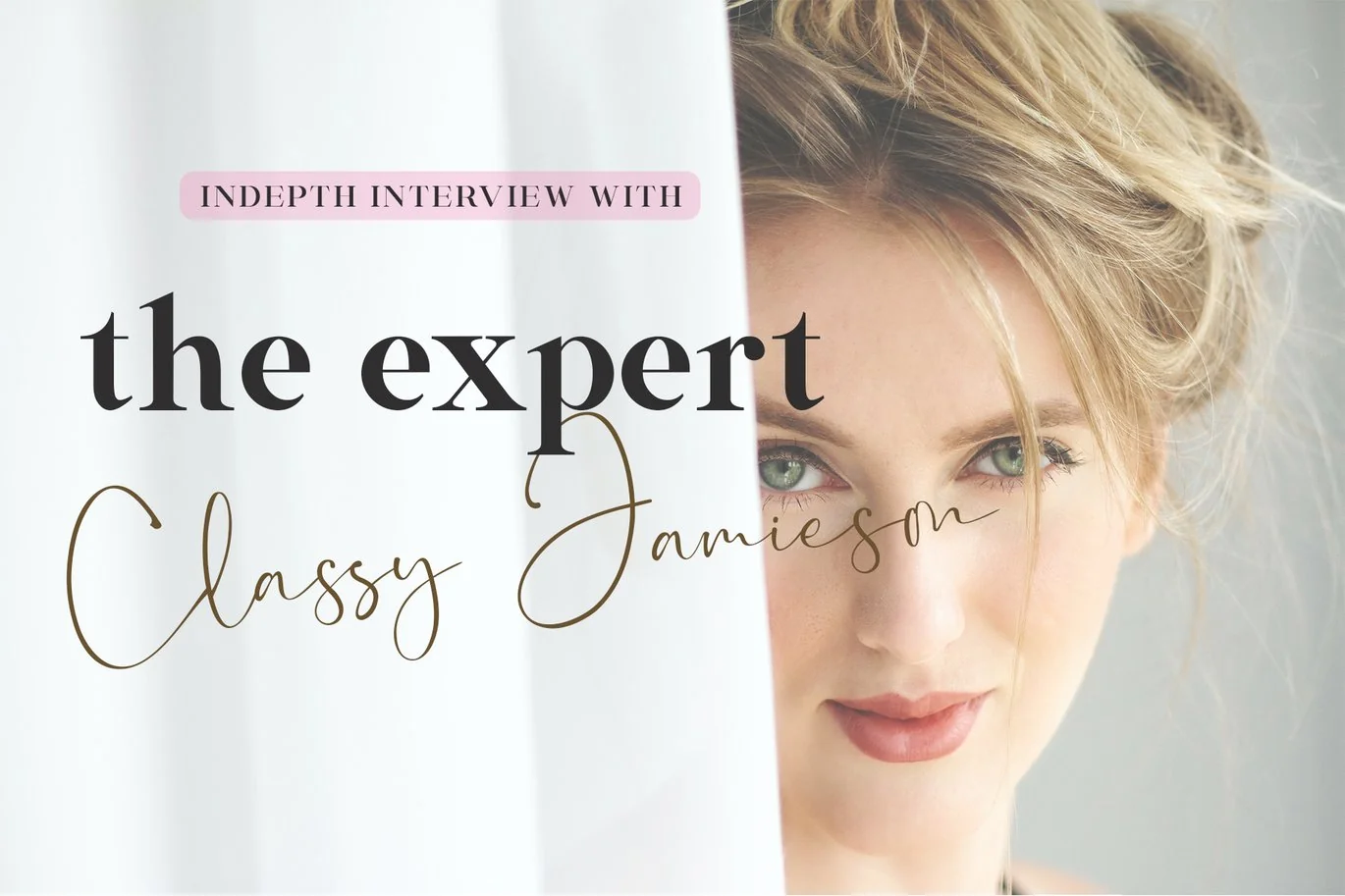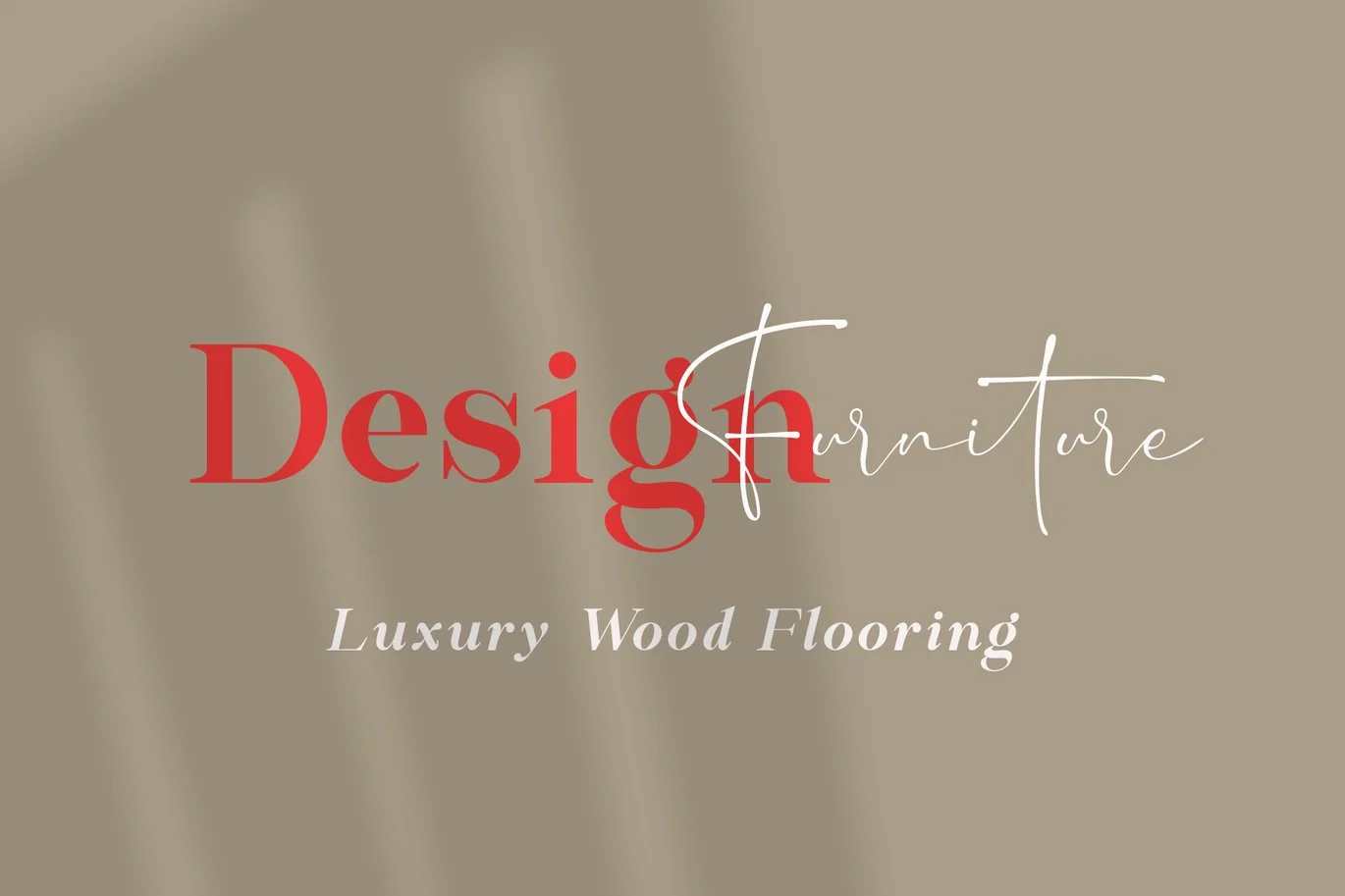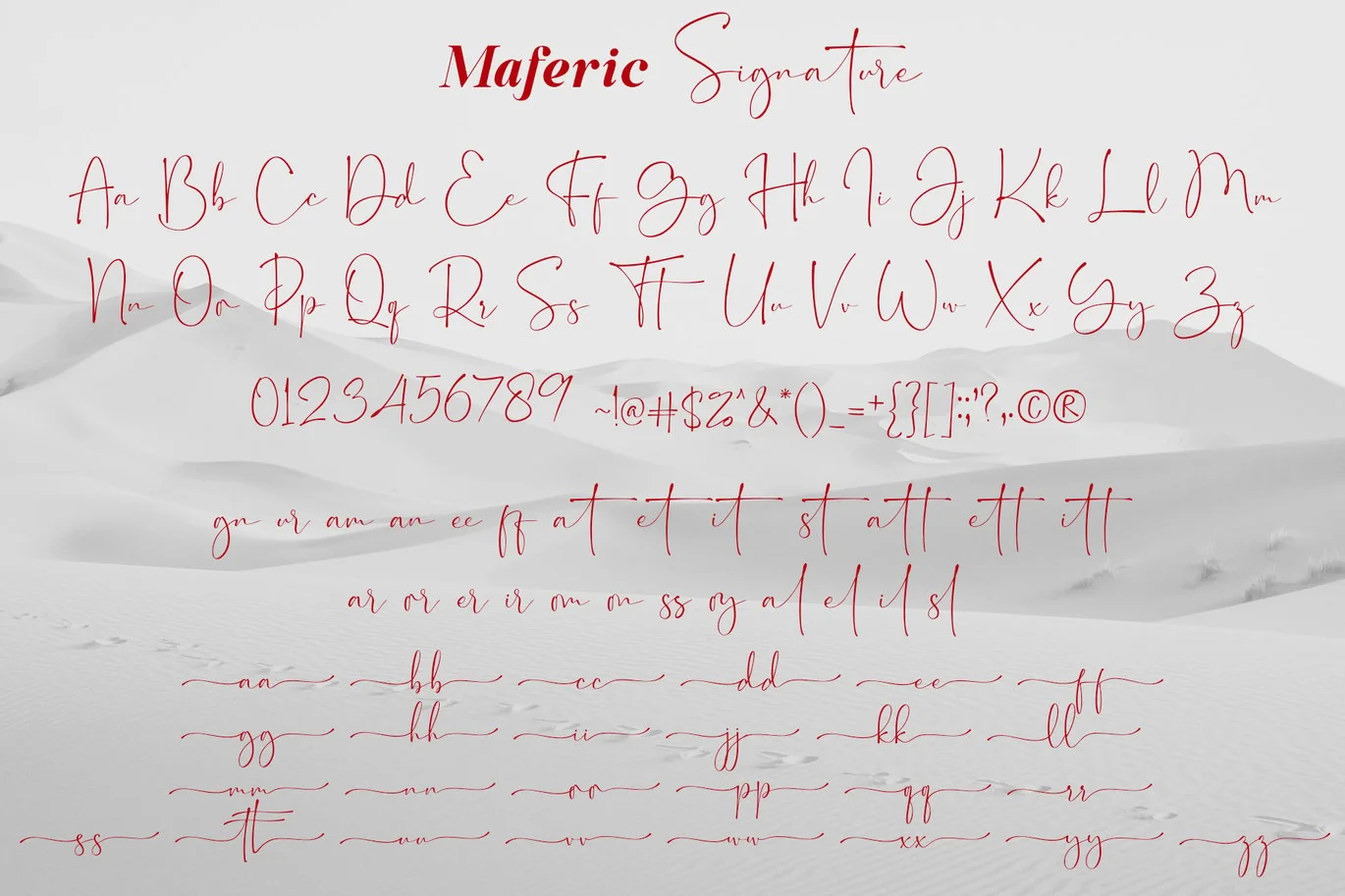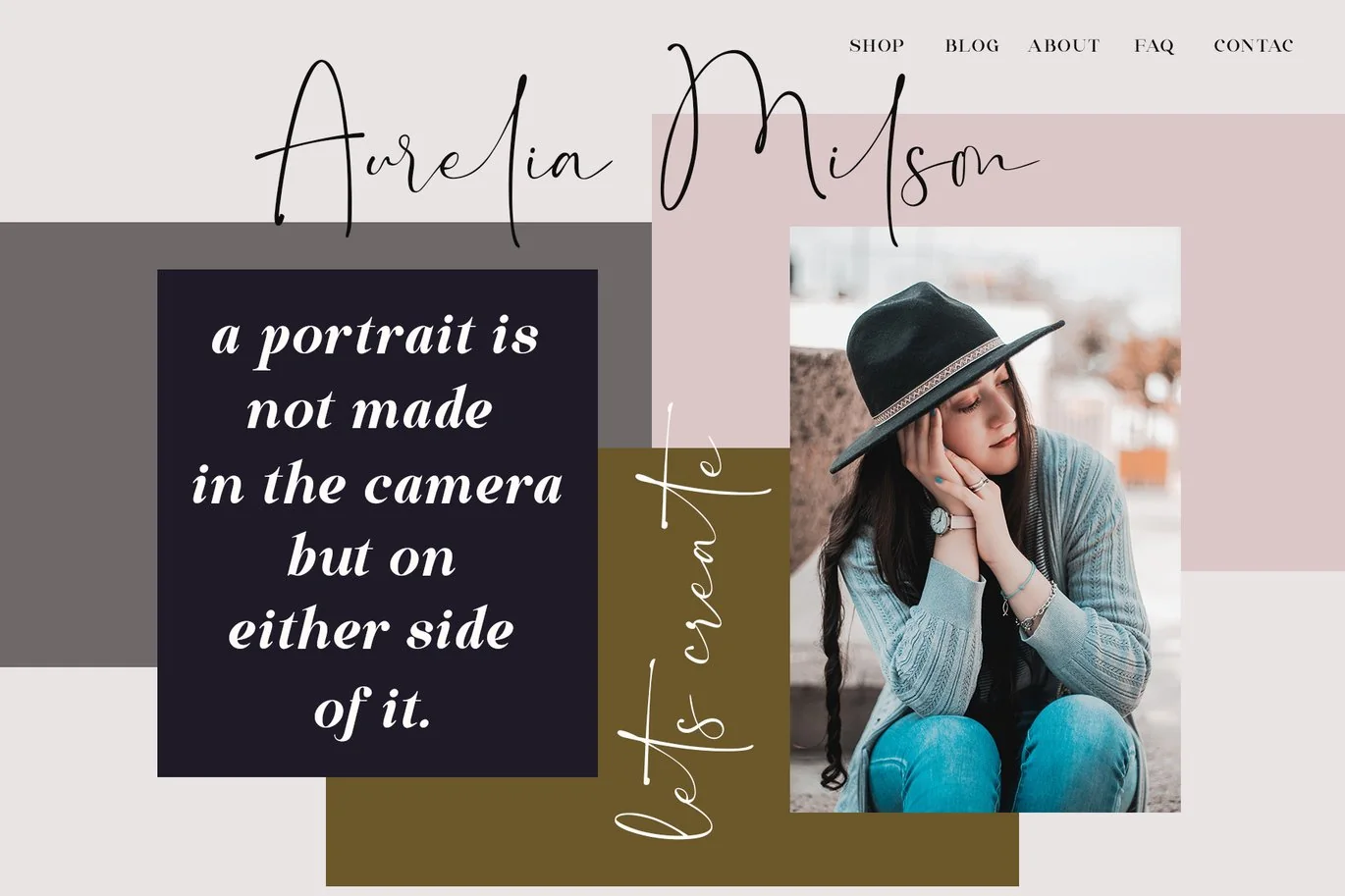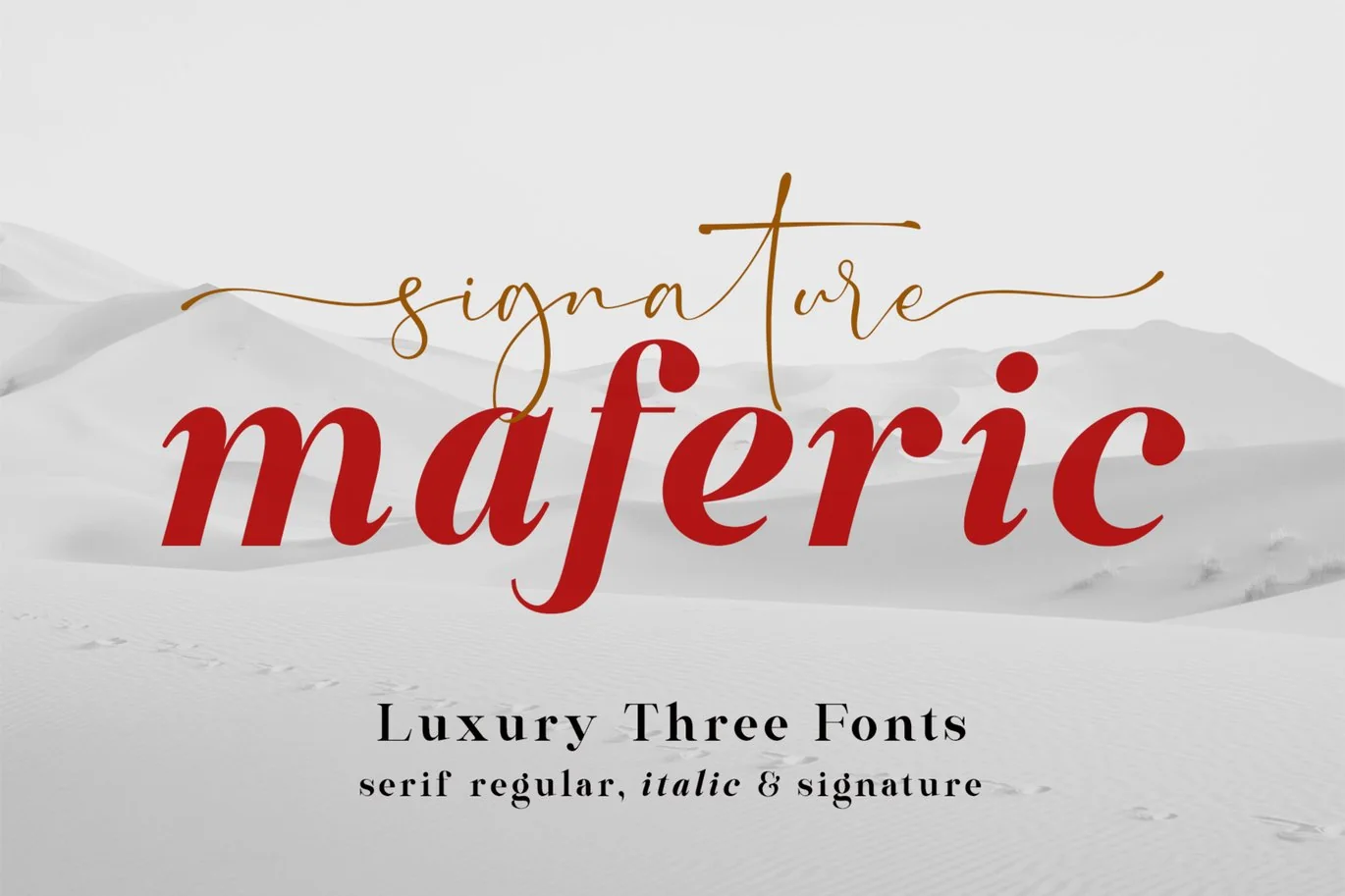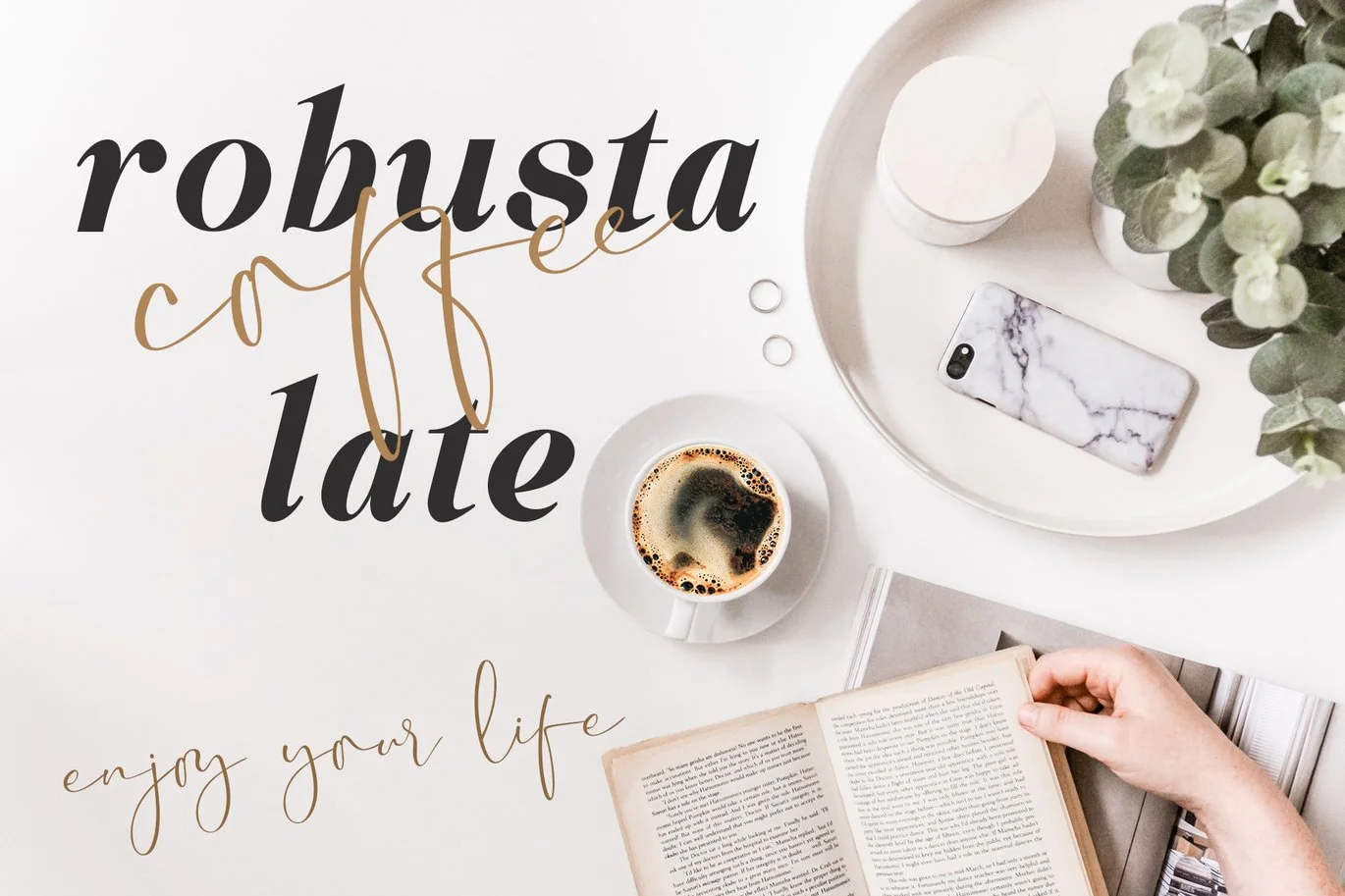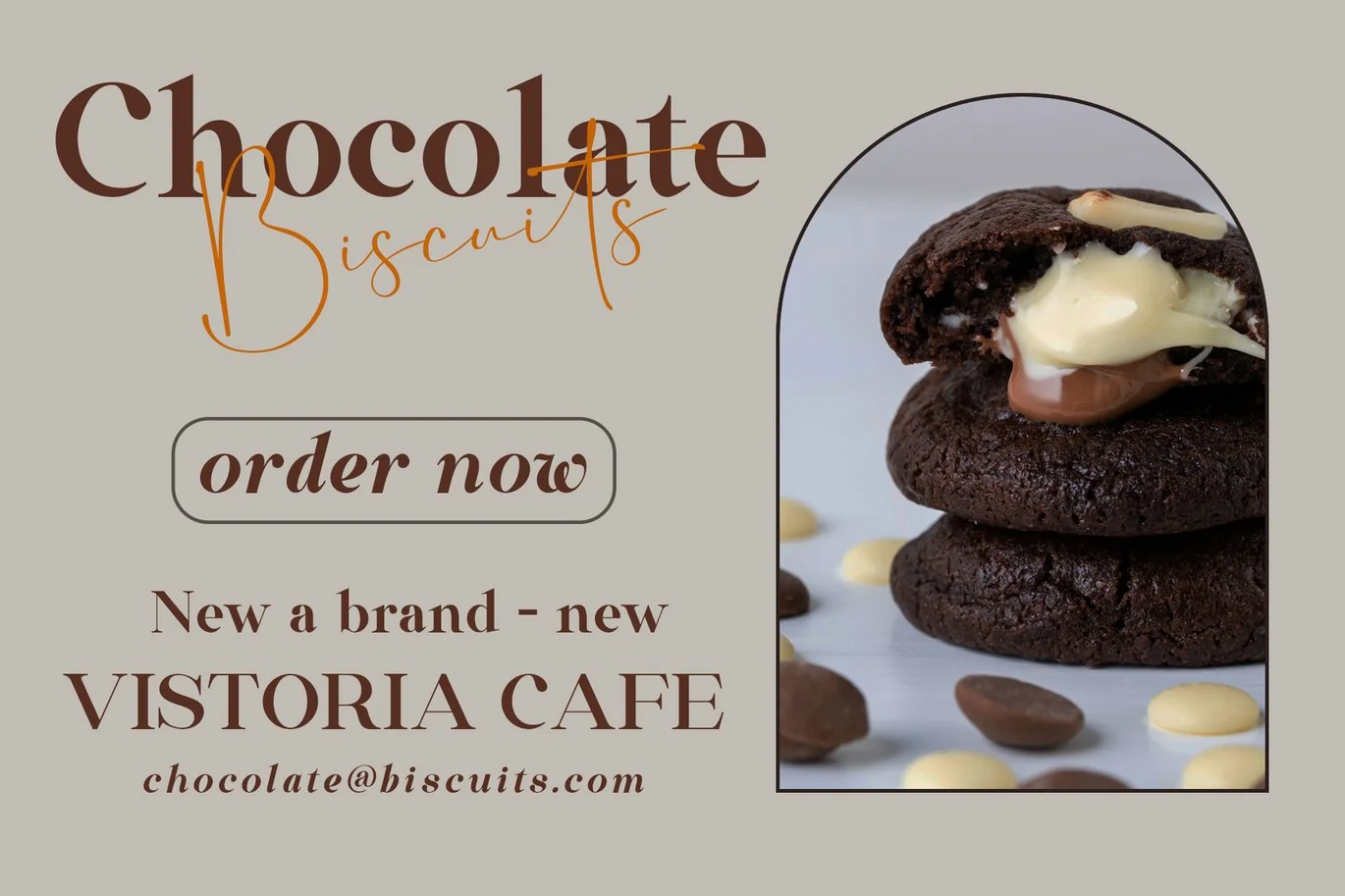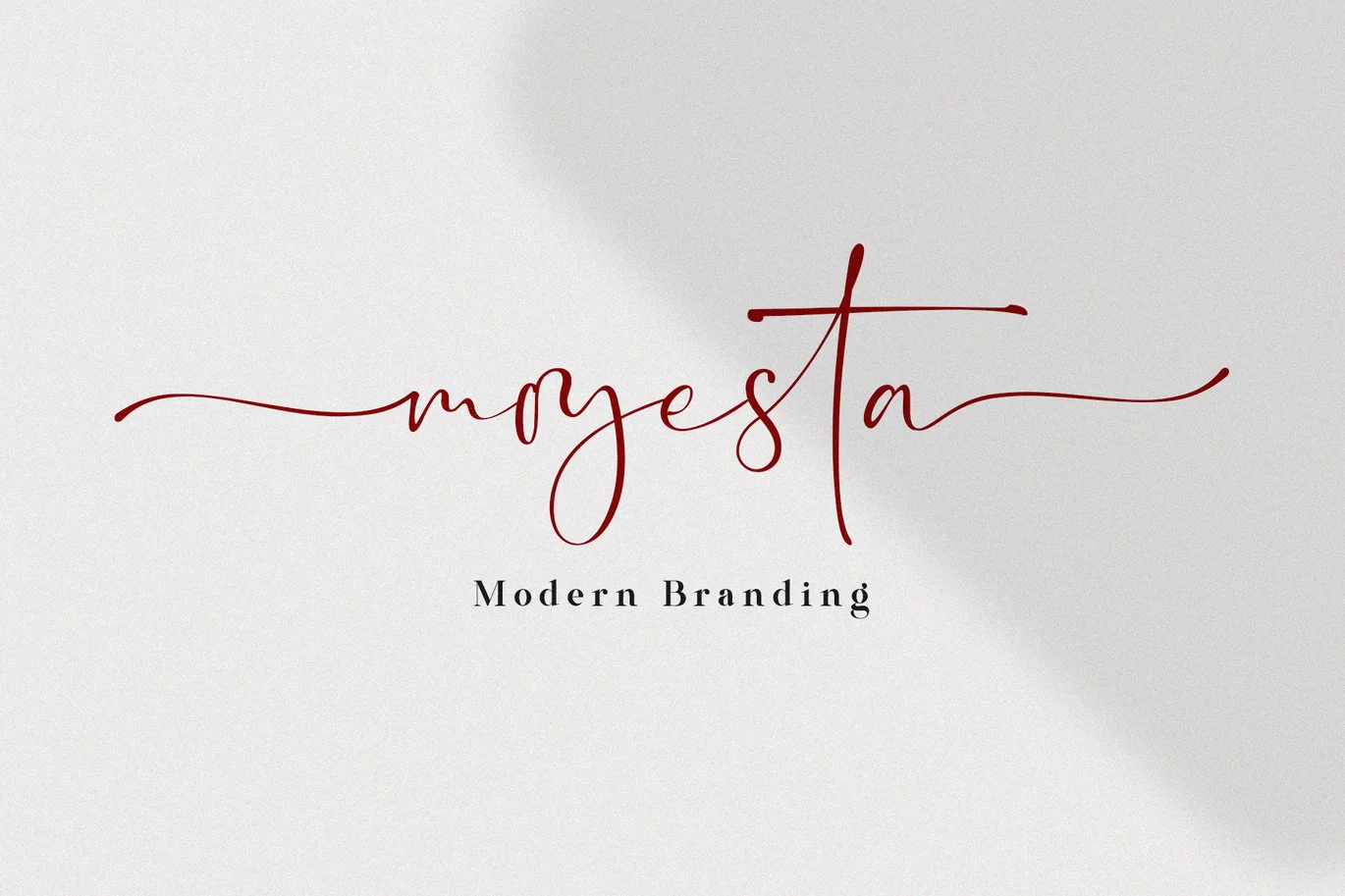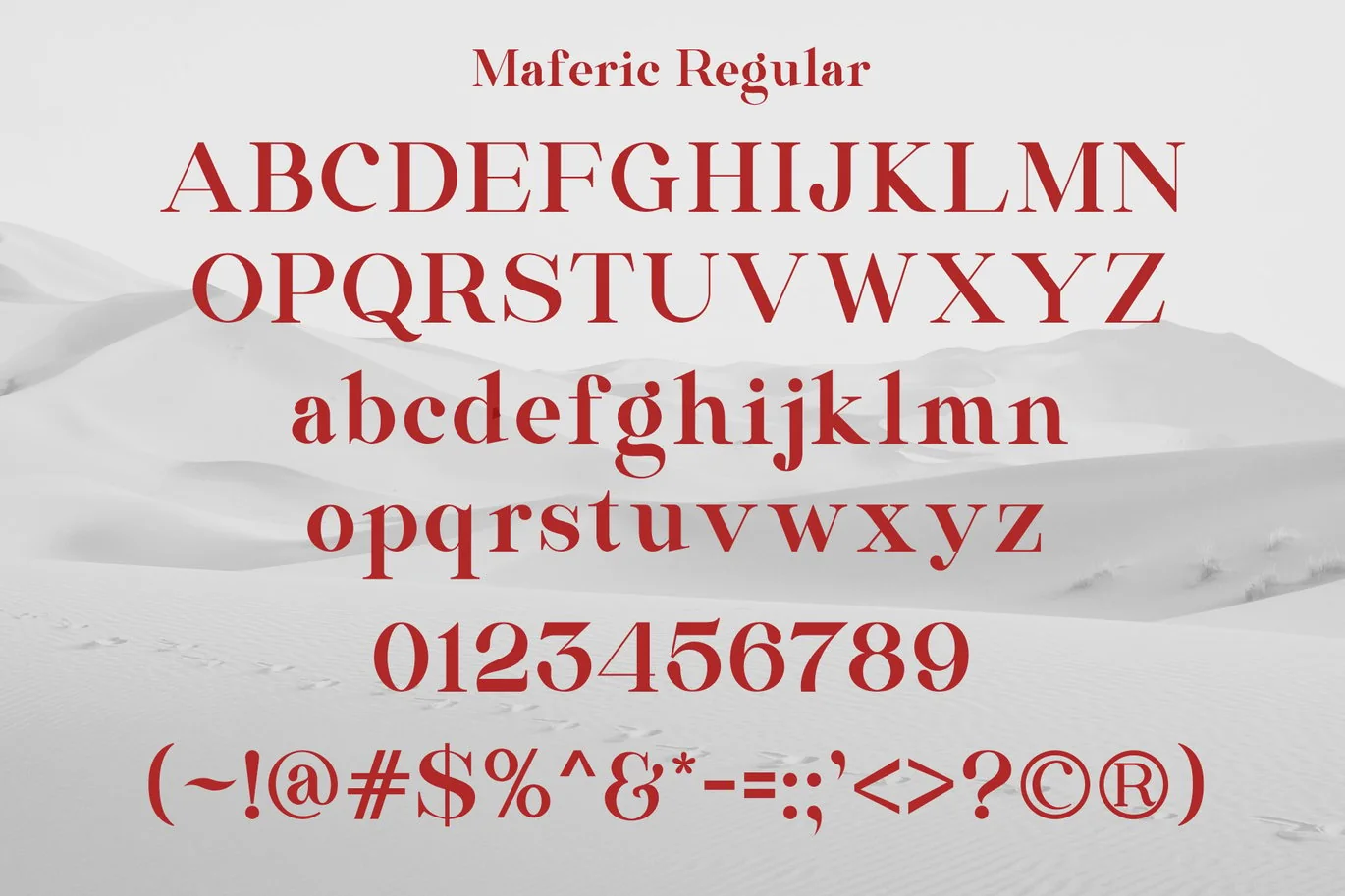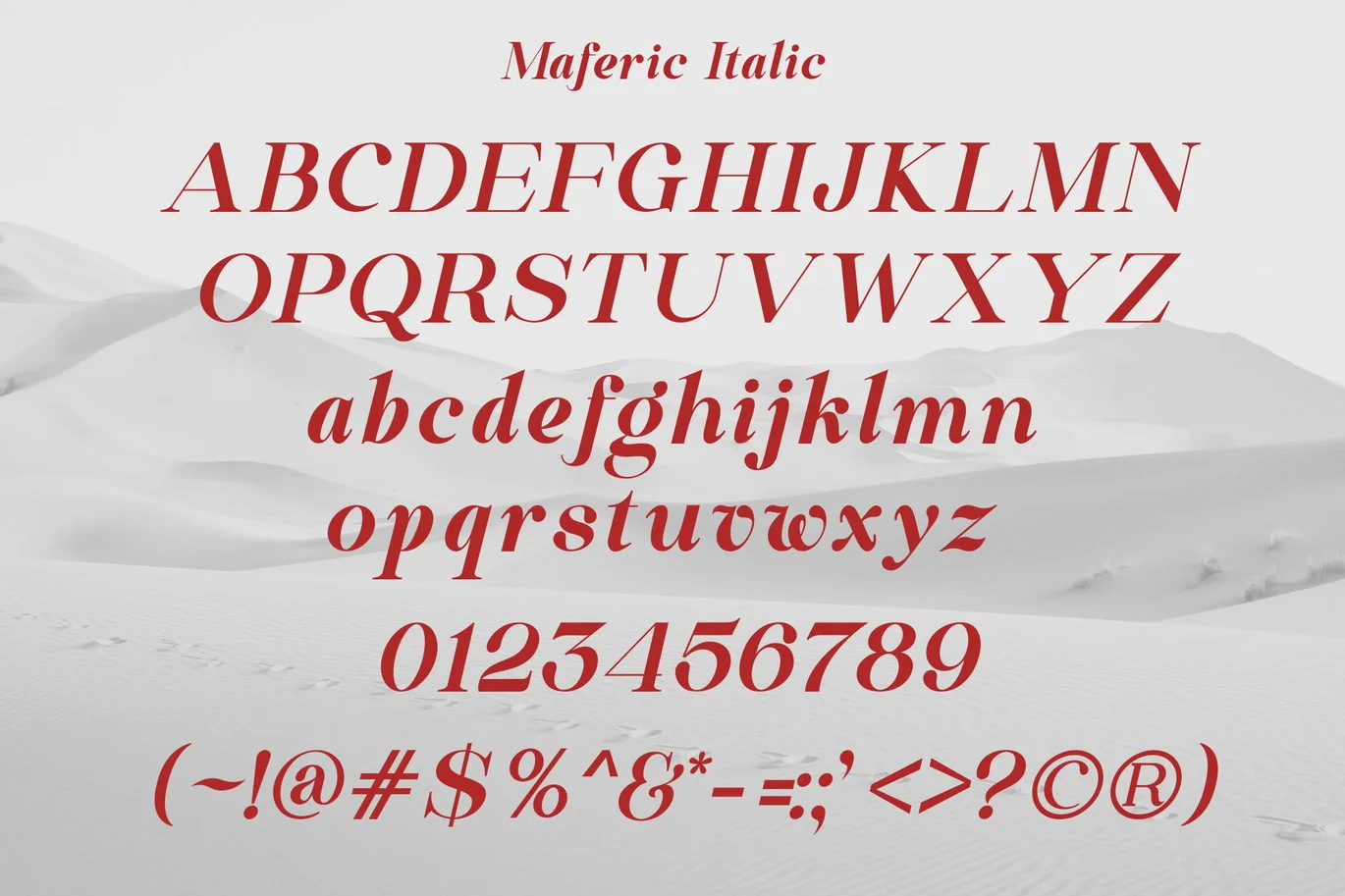
Maferic Signature | Luxury Three Fonts
Maferic Signature is a combination font consisting of luxury three fonts. Which has uniqueness in each letter and helps you to make your design work look more special. This font is perfect for your designs such as logos, branding, fashion, business cards, social media, and of course many more.